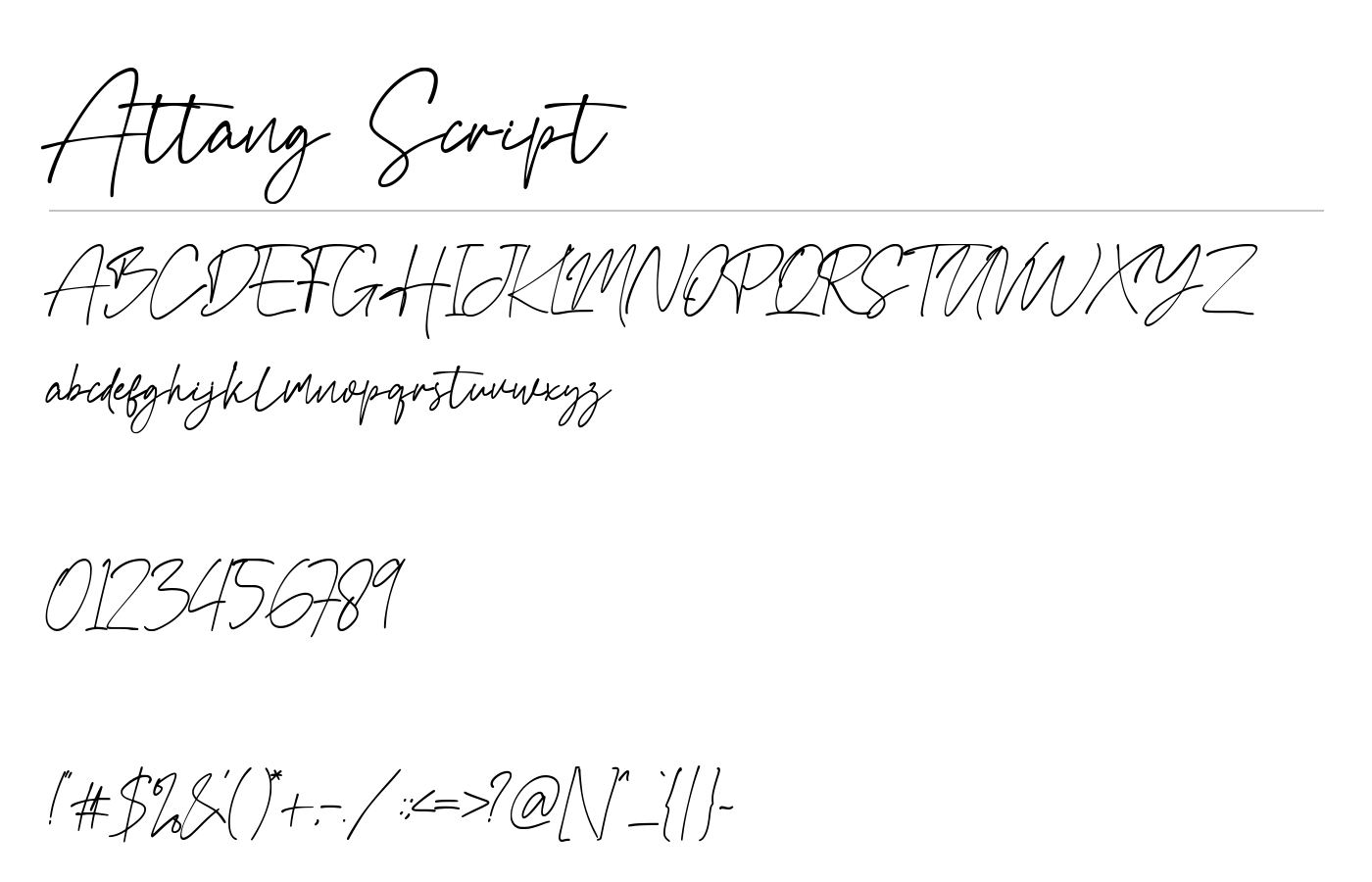
Attang Script is a light, elegant handwritten font with a natural, flowing style that mimics delicate, cursive penmanship. Its narrow width and tall x-height give it a graceful, airy feel, making it perfect for projects that want to convey a personal, artistic, or refined touch. This font works beautifully for invitations, branding, and creative headlines where a stylish yet approachable aesthetic is desired.
Attang Script Font
About Attang Script Font